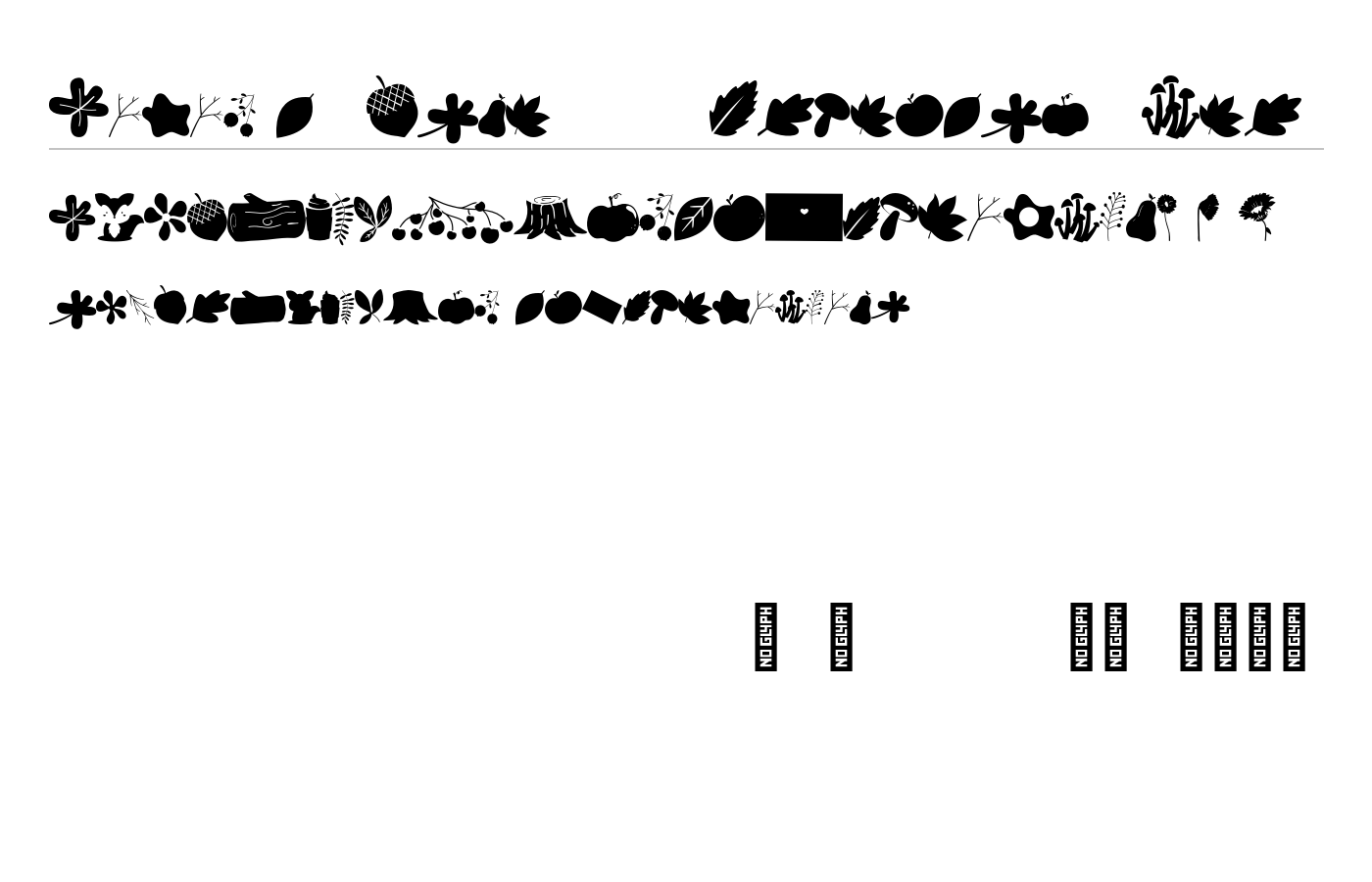
Autumn Days is a charming decorative font filled with playful autumn-themed icons and shapes, making it perfect for seasonal designs. Its bold, solid silhouettes evoke a cozy, festive mood ideal for fall-themed projects such as invitations, packaging, and posters. This font works best as an accent or decorative element to add warmth and personality to creative layouts.
Autumn Days - Personal Use Font
About Autumn Days - Personal Use Font
| Font family | Autumn Days - Personal Use Font |
| Designer | Heloyud |